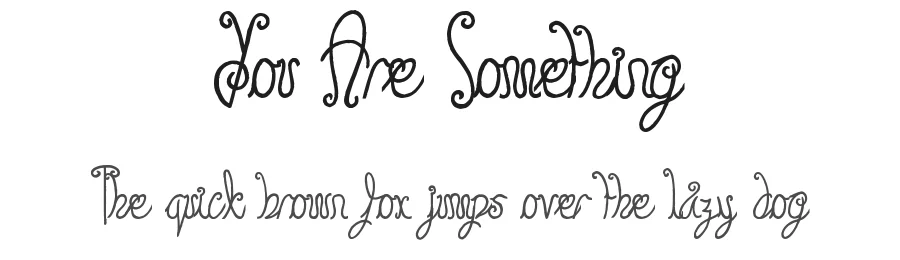
About Revolving Door Font
Revolving Door is a decorative font designed by L'Abecedarienne. It includes 192 glyphs, a regular weight, TTF (TrueType) format, and 201 languages. Revolving Door is free to download; check the license details on this page before commercial use. Decorative fonts like Revolving Door work best for logos, posters, packaging, and standout headlines.
Revolving Door Font is a decorative font that shines as a display or heading face. Pair it with a clean sans-serif or serif font for body text β the contrast creates a clear hierarchy while the two styles stay balanced and easy to read.
Revolving Door Font
Revolving Door Font is a decorative typeface by L'Abecedarienne, ideal for logos, invitations, branding, and creative projects.